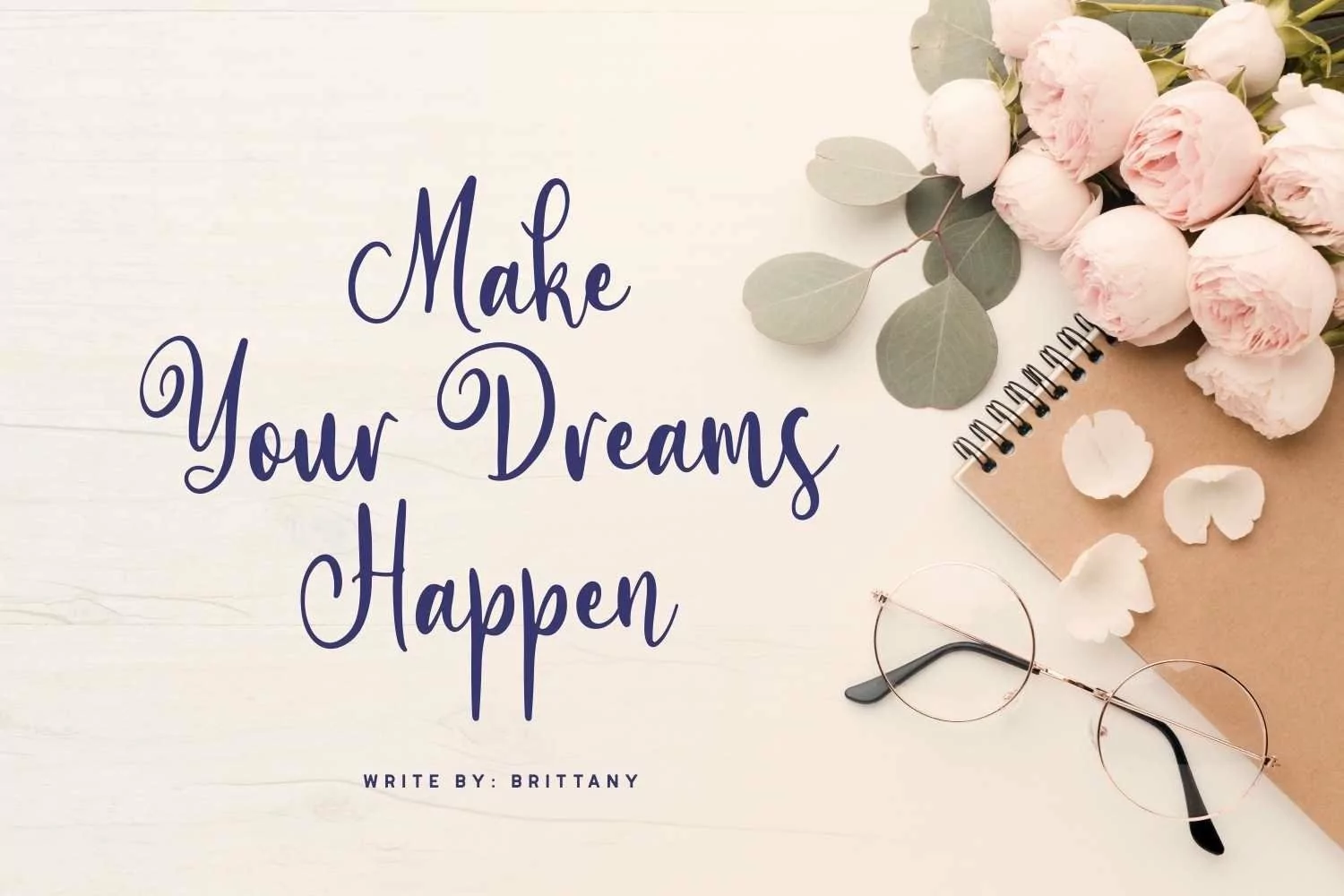
Roustic is a beautiful calligraphy typeface with casual touch. This looks elegance and classy script taste. It matches applies in some designs such as the logotype, brand, packaging, quotes, poster, greeting card, business cards, invitation wedding and more custom design. The features uppercase, lowercase, numeral, punctuation & symbol, multilingual support, PUA encoded (fully accessible without additional design software).